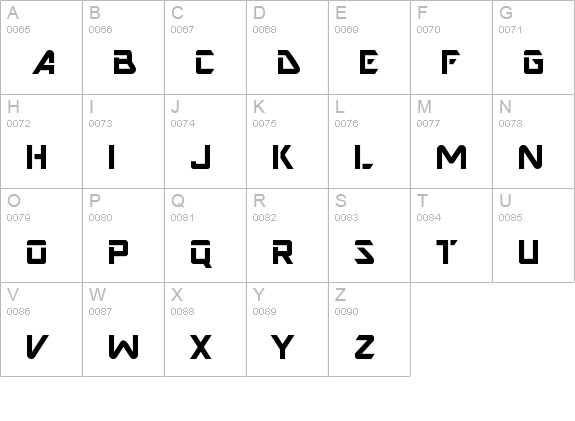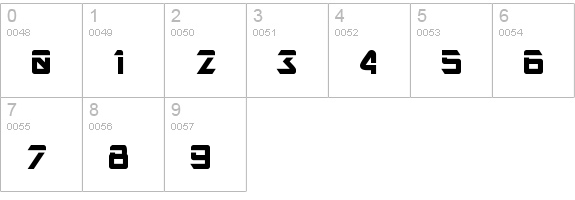
Nesbitt Font Details
Nesbitt font is a modern and stylish typeface that exudes elegance and sophistication. With its clean lines and sleek design, Nesbitt font is perfect for a wide range of design projects, from branding to web design. Its versatility makes it a great choice for both headings and body text. This beautiful font is available for free download at FontsMarket.com, making it accessible to designers and creatives looking to add a touch of class to their projects. Don't miss out on the opportunity to enhance your designs with the timeless appeal of Nesbitt font.